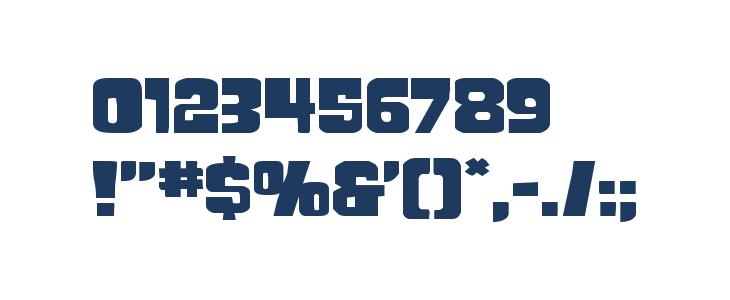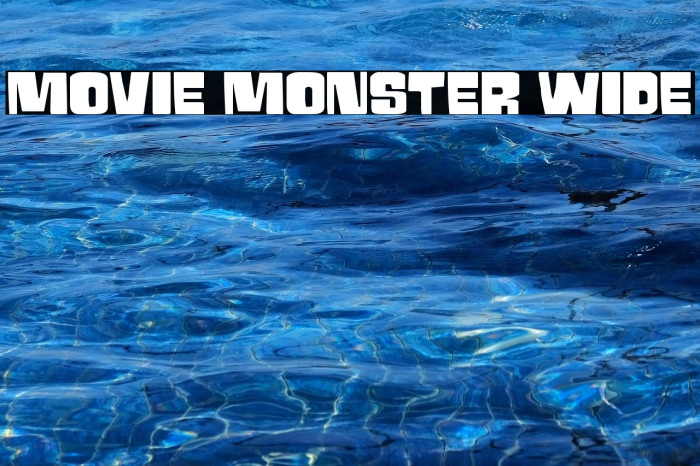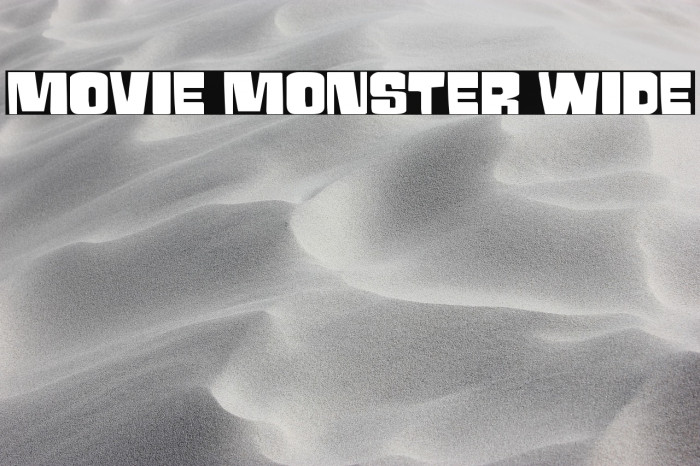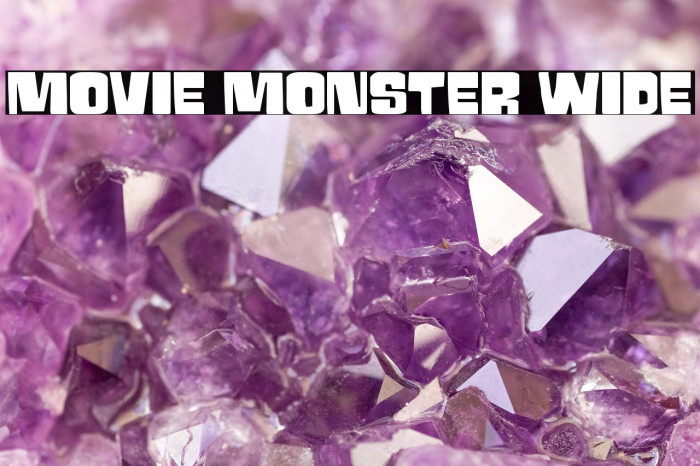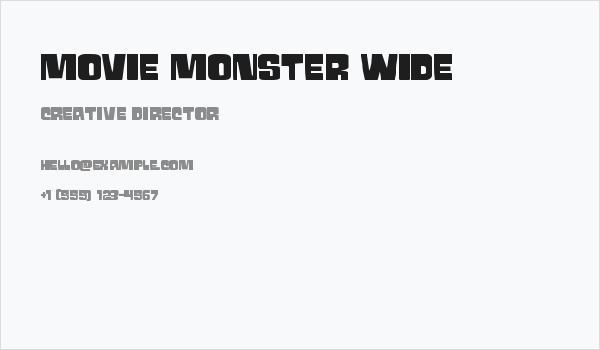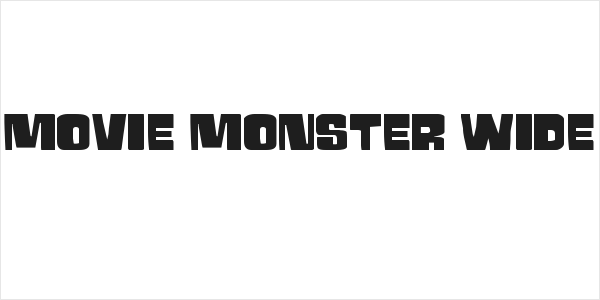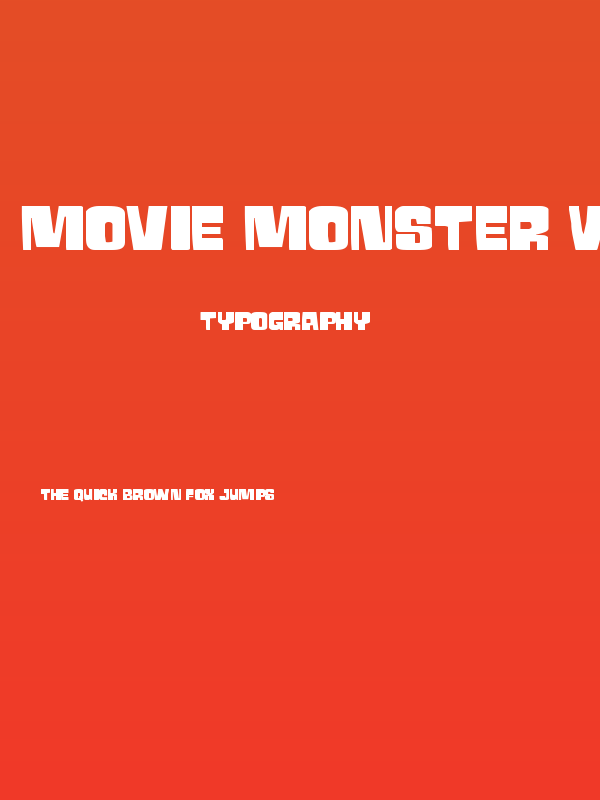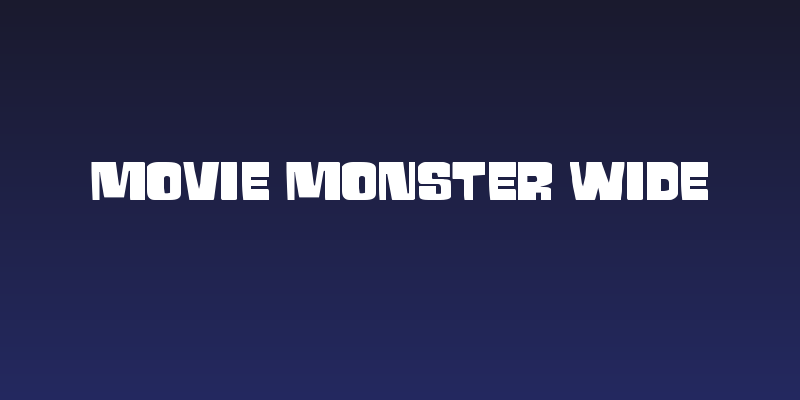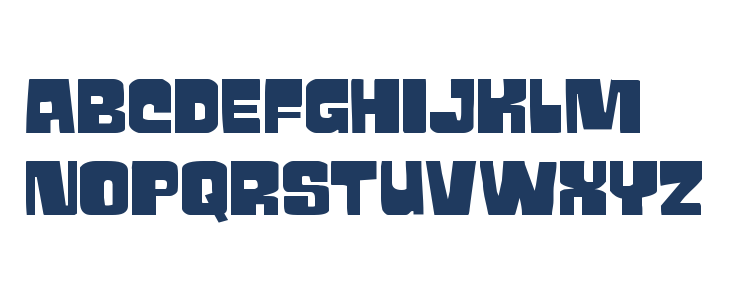
Movie Monster Wide Font
Movie Monster Wide Description
This bold and impactful font features a wide, blocky design with strong geometric shapes. The uppercase letters are particularly striking, with a heavy weight that commands attention. The characters have a uniform width, giving the font a cohesive and structured appearance. The numbers and special characters maintain the same bold style, ensuring consistency across all text elements. This font is ideal for creating a dramatic and eye-catching effect, making it perfect for headlines or titles that need to stand out.